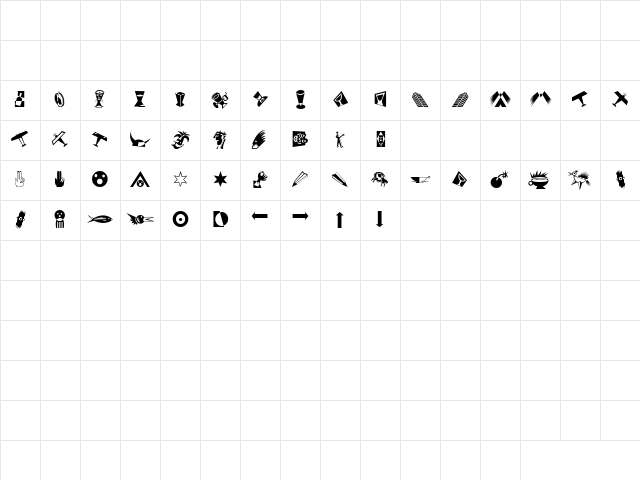
P22 Futurismo Extras Regular Free Font
P22 Futurismo Extras Regular
Design Context for P22 Futurismo Extras
P22 Futurismo Extras has a distinctly futuristic character, with geometric precision and clean angles that feel at home in technology, gaming, and sci-fi contexts.